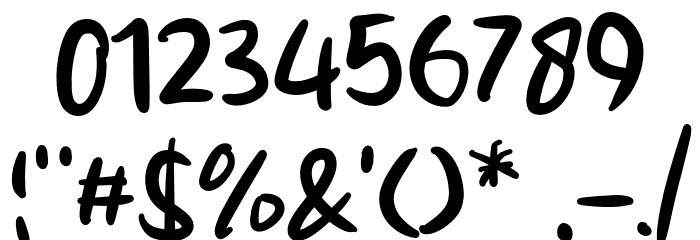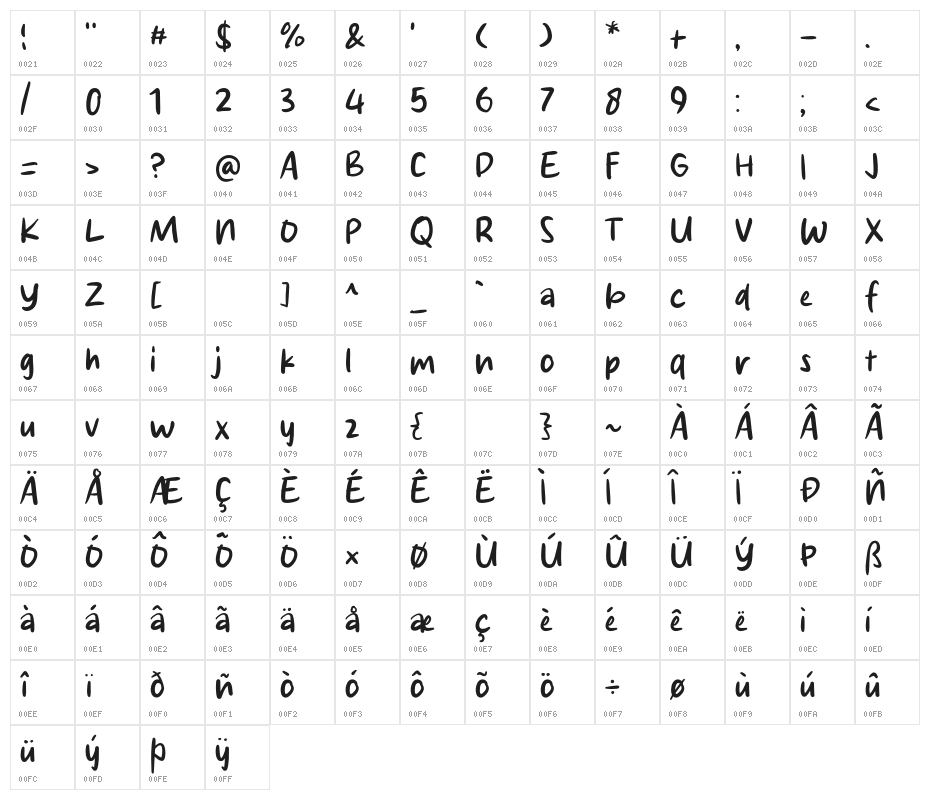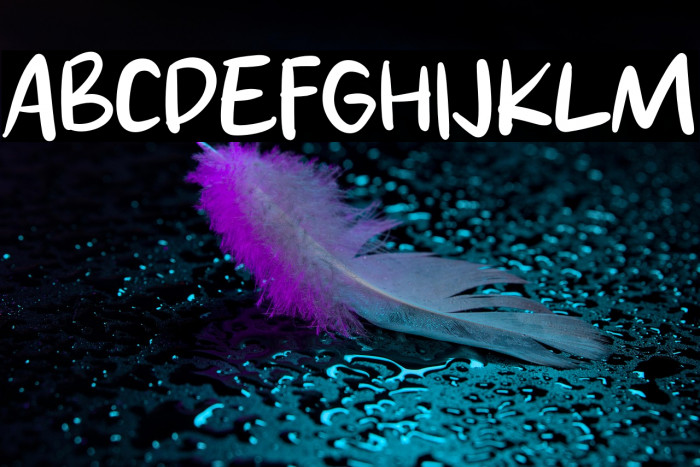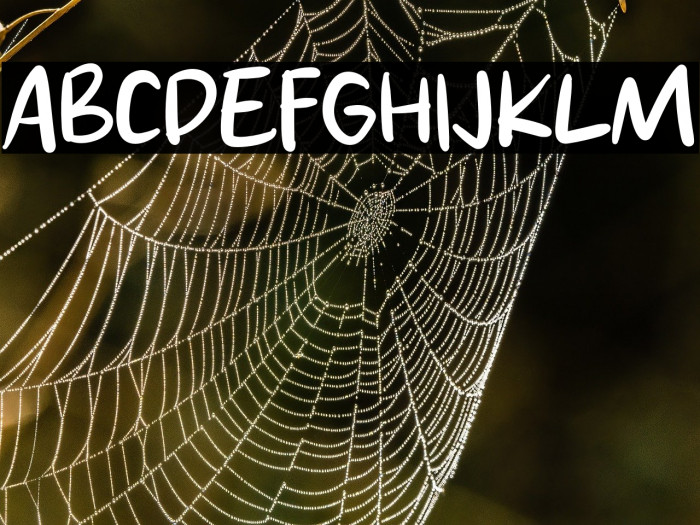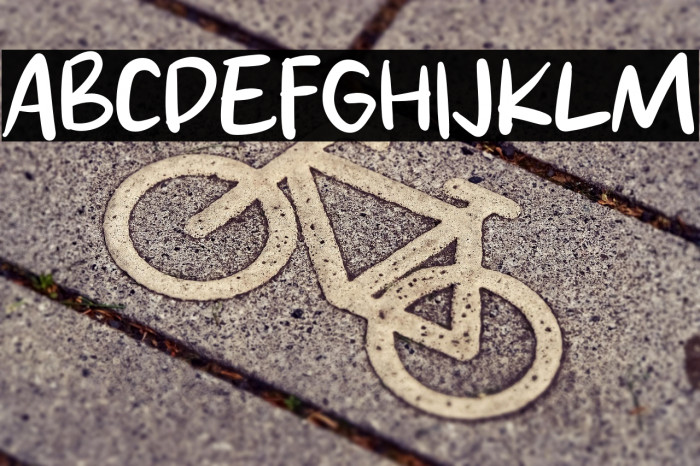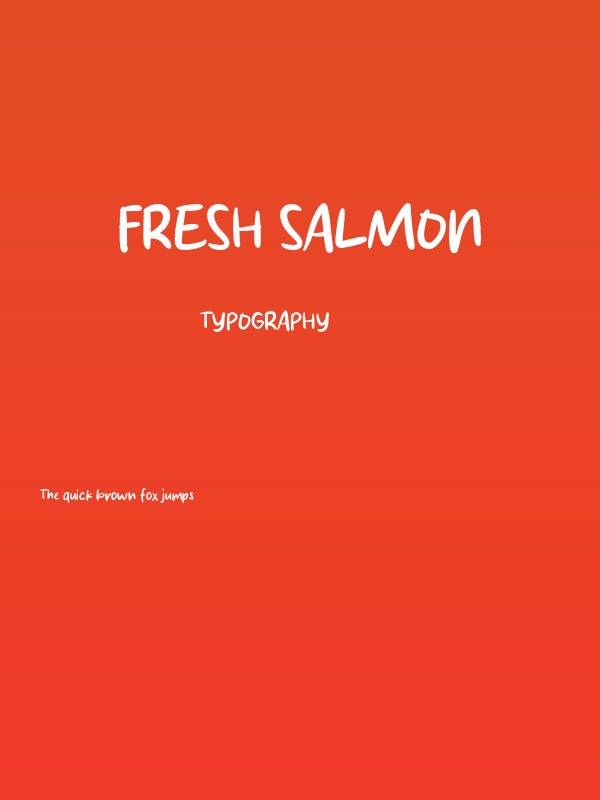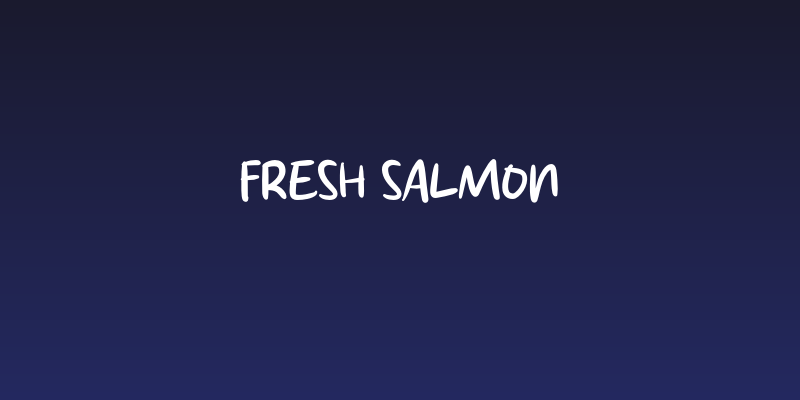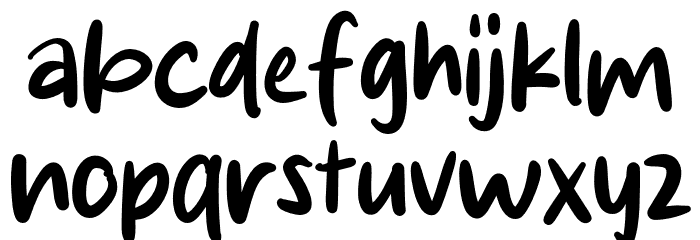
Fresh Salmon Font
Fresh Salmon Description
This font features a playful and casual handwritten style, characterized by its bold and slightly irregular strokes. The letters are rounded and have a friendly appearance, making it suitable for informal and creative projects. The uppercase and lowercase letters maintain a consistent flow, while the numerals and special characters complement the overall design with their quirky and approachable look. The font's organic feel adds a personal touch, making it ideal for projects that require a human element.
| Proposed Projects | Ideal for greeting cards, children's books, playful branding, and social media graphics. |